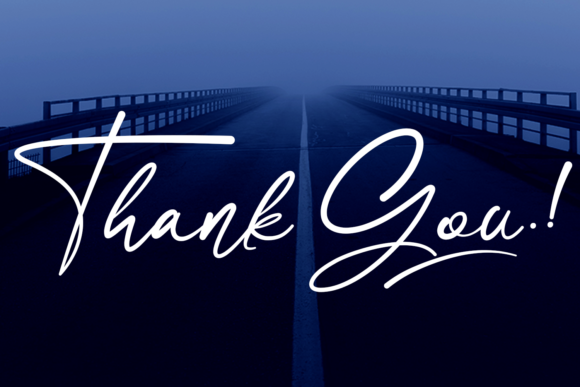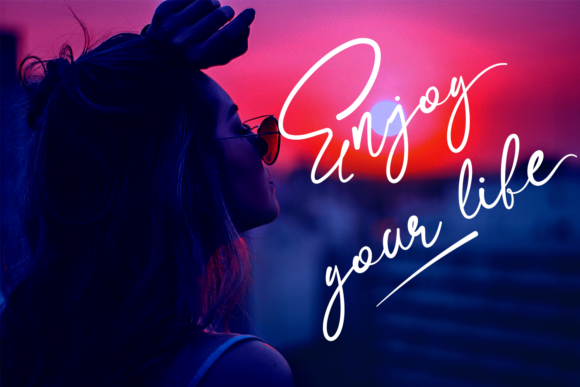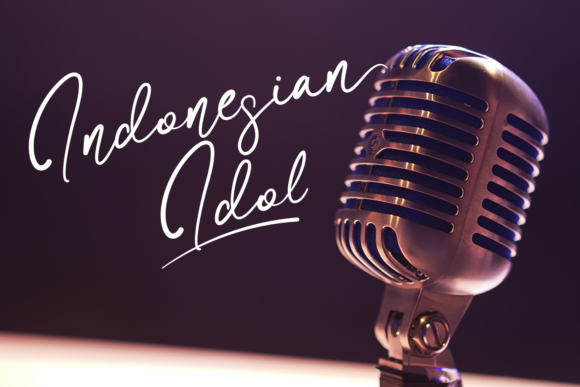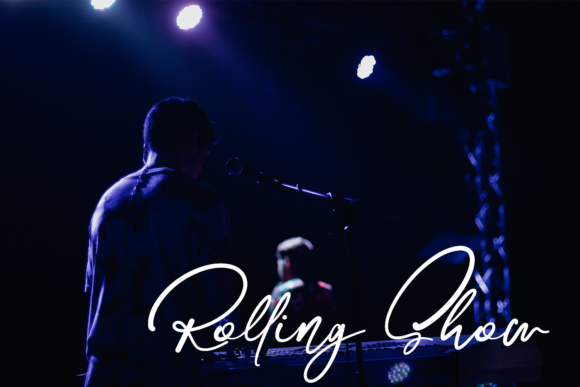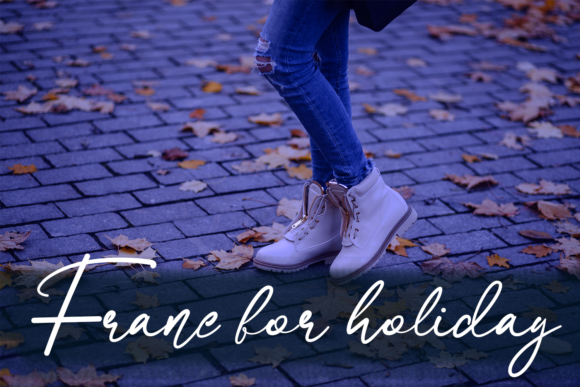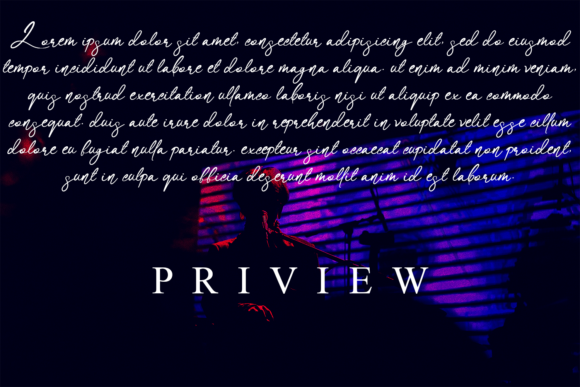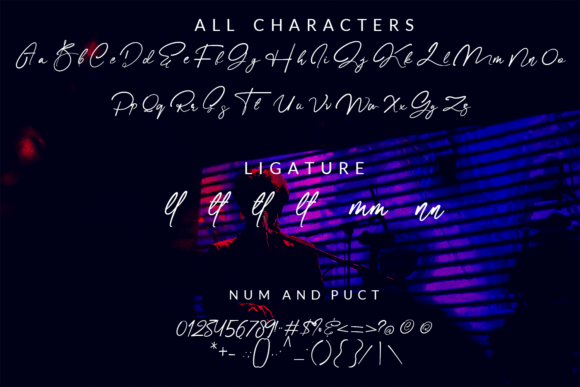
HomeScript FontsSallina Font Script Fonts Sallina Font FacebookXPinterestWhatsApp Sallina Font Poster 2 Sallina Font Poster 3 Sallina Font Poster 4 Sallina Font Poster 5 Sallina Font Poster 6 Sallina Font Poster 7 Sallina Font Poster 8 Sallina Font Poster 9 Sallina Font Poster 10 About Sallina Font Sallina is a stunning script featuring bold swashes. Get inspired by its sophisticated charm! DOWNLOAD ON CREATIVE FABRICAThis font is sold and delivered by Creative Fabrica. Font Canyon may earn a commission if you buy through this link. People also explored Cheesy Honey Font Relaxii Font Marcopolo Font Beautiful Font As Font Waterstone Font Laurentine Font Our Nature Font Ernesthuge 319 0 TagsSallina Font Previous articleBastogne FontNext articleCellest Font LEAVE A REPLY Cancel reply Comment: Please enter your comment! Name:* Please enter your name here Email:* You have entered an incorrect email address! Please enter your email address here Website: Save my name, email, and website in this browser for the next time I comment. Personal Use Free White Rose Personal Use Free Read more about this font Lynoselt Personal Use Free Read more about this font Reztop Personal Use Free Read more about this font Millea Personal Use Free Read more about this font BLOG Free vs Paid Fonts: Why Investing in Premium Fonts Is Worth It Free vs Paid Fonts: Why Premium Fonts Are Worth It in 2025 The debate of free vs paid fonts continues in the design world. While... Fonts That Capture the Spirit of New York City The 10 Best Handwriting Fonts to Add Personality to Your Designs Where to Buy American Fonts Online in 2024